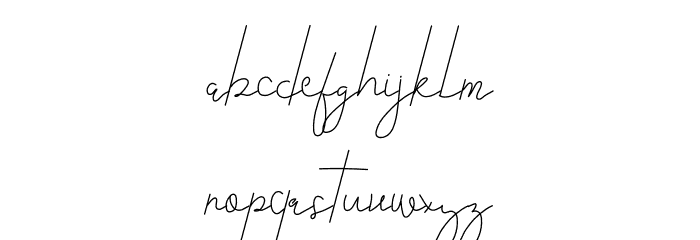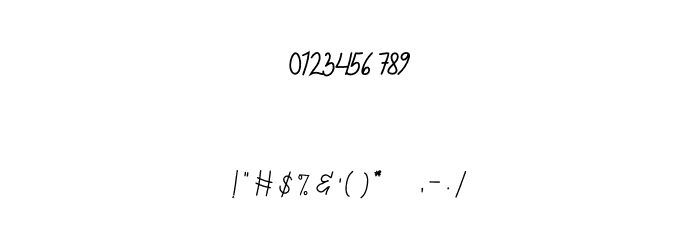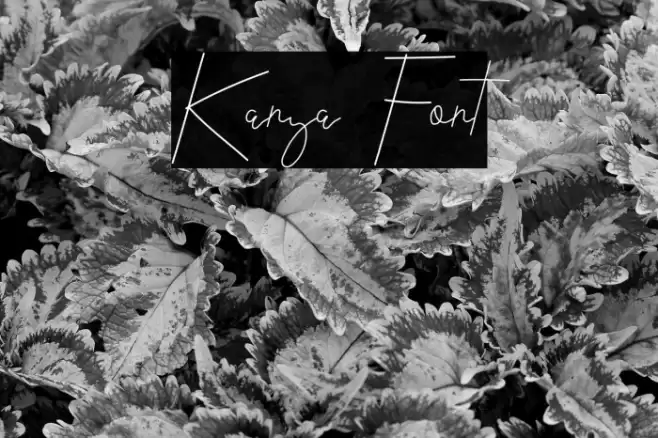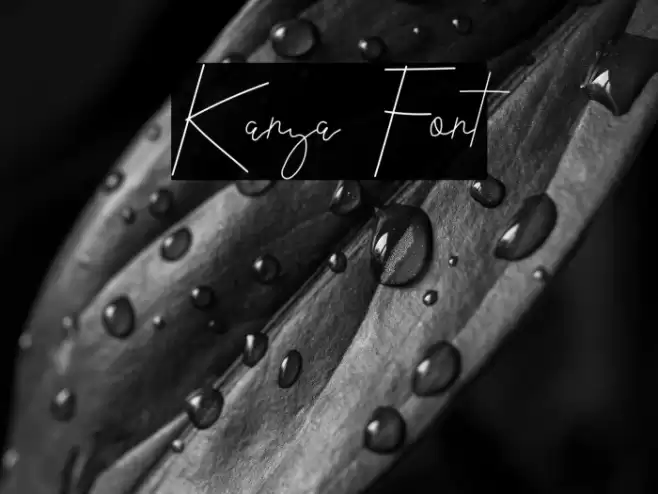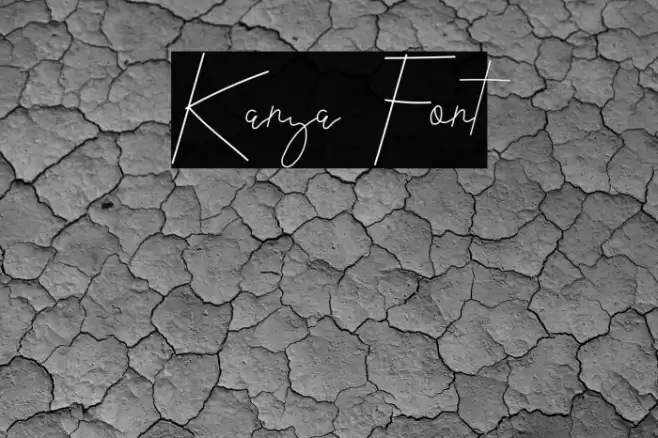
Kanya Font
This font features an elegant and flowing script style, characterized by its thin, delicate lines and graceful curves. The uppercase letters exhibit a sophisticated flair with extended strokes and loops, while the lowercase letters maintain a consistent fluidity, enhancing the overall aesthetic. The numerals are clear and maintain the same thin line weight, ensuring readability. Special characters are seamlessly integrated, matching the font's refined style. This font exudes a sense of elegance and sophistication, making it ideal for projects that require a touch of class and artistic flair.
An elegant, flowing script font with thin, graceful lines.
- Proposed Projects: Ideal for wedding invitations, elegant branding, personal stationery, and artistic projects.
- Category: Script
- Weight: Light
- Overall Style: Elegant, Artistic
- Use Case: Logos, Invitations, Artistic projects